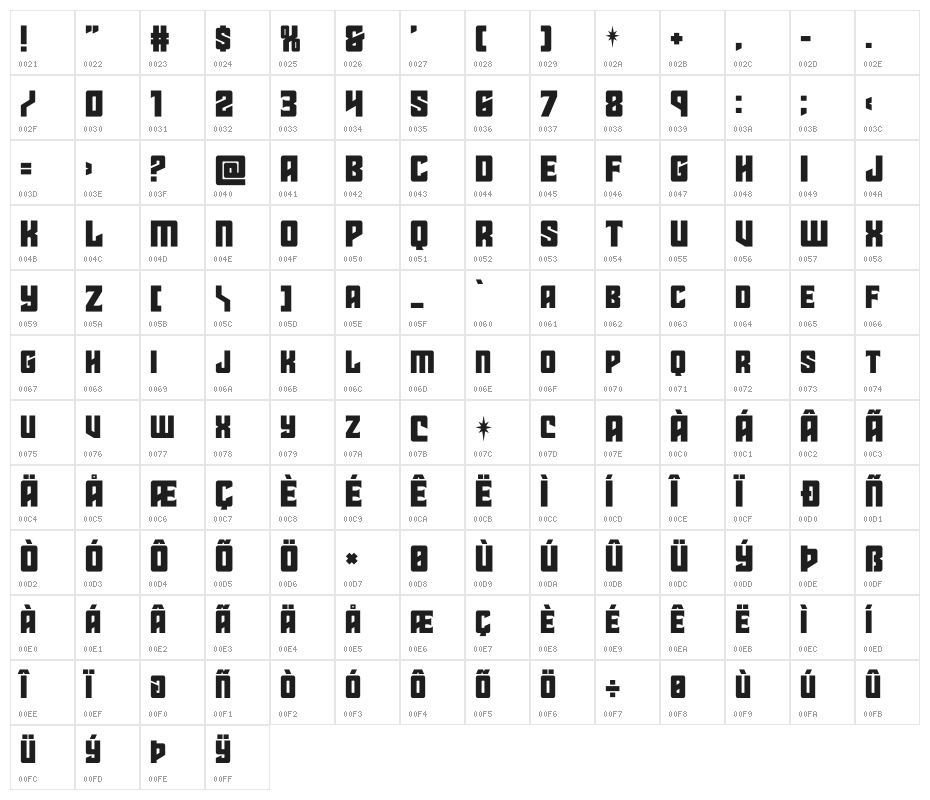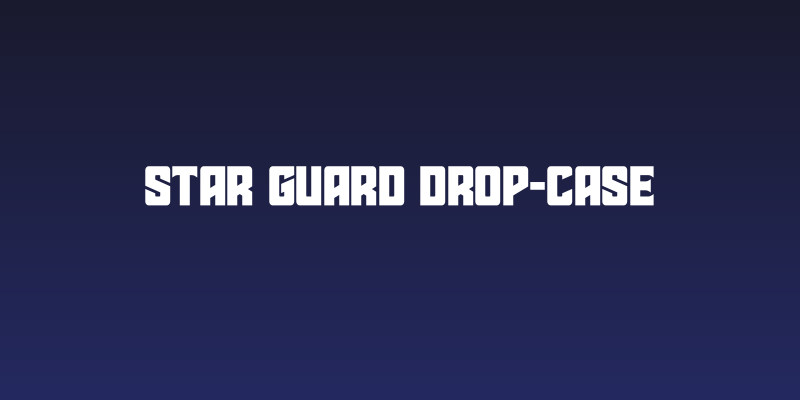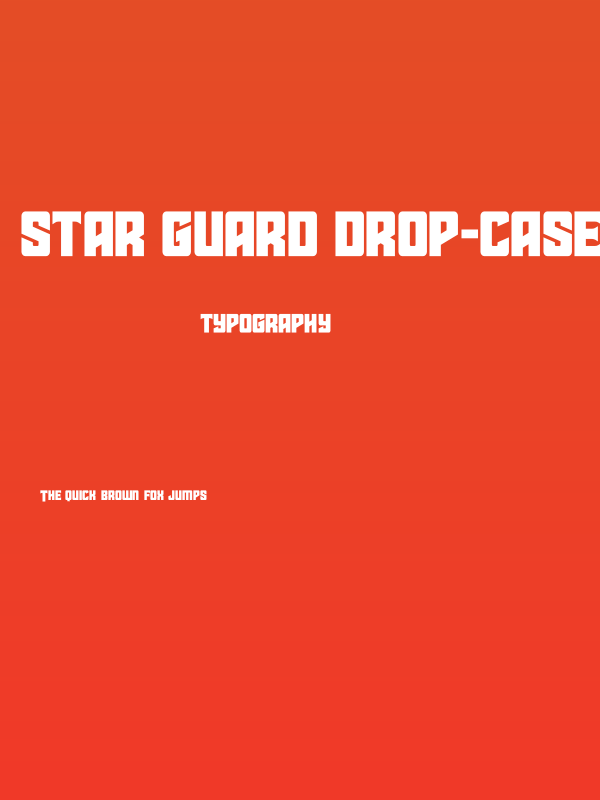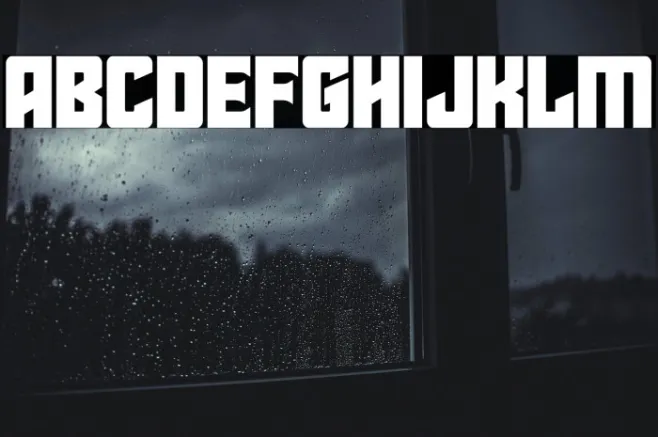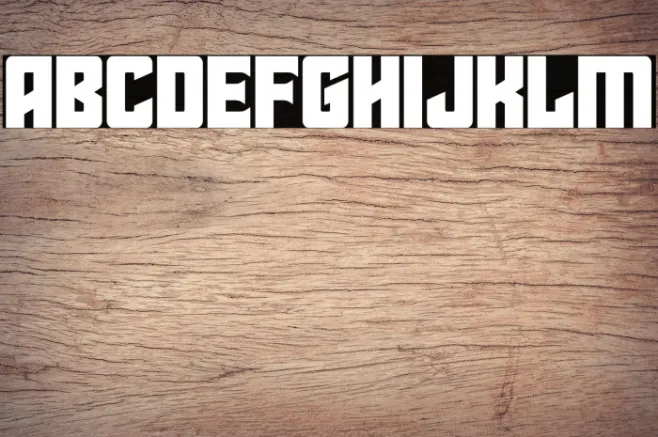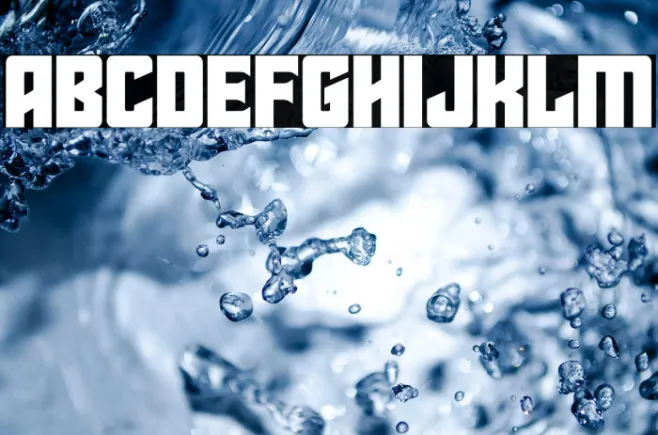
Star Guard Drop-Case Font
Star Guard Drop-Case Description
This bold, geometric font features strong, angular lines and a futuristic aesthetic. The uppercase letters are blocky and robust, with sharp edges that give a sense of strength and modernity. The lowercase letters maintain the same boldness, ensuring consistency throughout the typeface. Numbers are equally bold and angular, making them stand out prominently. The special characters are designed to match the overall theme, with unique shapes that add to the font's distinctive style. This typeface is ideal for projects that require a strong, impactful visual presence.
| Proposed Projects | Ideal for sci-fi themed posters, video game titles, branding for tech companies, and any project needing a modern, bold look. |